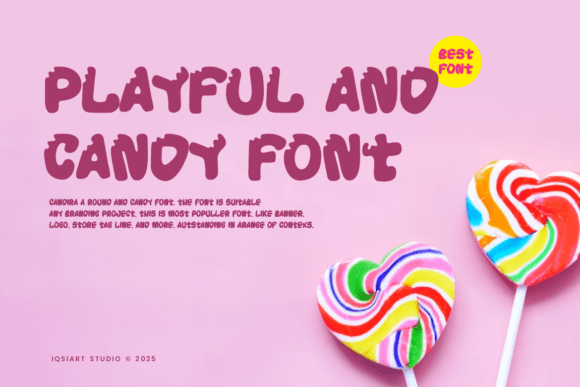
Candira Font: The Sweetest Display Font for Your Designs
Are you looking for a font that can add a touch of sugary charm to your designs? Look no further than Candira Font! This bold, bouncy, and irresistibly sweet display font is perfect for kids’ products, packaging, party invitations, playful branding, and anything that needs a dash of fun and whimsy.
What is Candira Font?
Candira Font is a unique and eye-catching display font that captures the fun of candy and childhood. Its thick, squishy letterforms and quirky style make it a standout from more traditional fonts. The font’s design is inspired by the colorful and playful world of candy, with each letterform carefully crafted to evoke the feeling of sugary treats.
Key Features of Candira Font
- Bold and Bouncy: Candira Font is a bold and bouncy font that grabs attention and adds energy to your designs.
- Sweet and Whimsical: The font’s quirky style and thick, squishy letterforms give it a sweet and whimsical feel that’s perfect for kids’ products and playful branding.
- Easy to Read: Despite its bold and playful design, Candira Font is easy to read and understand, making it perfect for use in titles, headings, and short paragraphs.
- Versatile: Candira Font can be used for a wide range of design projects, from kids’ products and packaging to party invitations and playful branding.
Uses for Candira Font
Candira Font is a versatile font that can be used for a wide range of design projects. Here are some ideas to get you started:
- Kids’ Products: Candira Font is perfect for kids’ products, such as toys, games, and children’s books.
- Packaging: The font’s bold and playful design makes it a great choice for packaging, especially for products aimed at kids.
- Party Invitations: Add a touch of fun and whimsy to your party invitations with Candira Font.
- Playful Branding: Use Candira Font to create playful and eye-catching branding for your business or product.
- Social Media Graphics: Candira Font is perfect for social media graphics, such as Facebook posts, Instagram stories, and Twitter headers.
Benefits of Using Candira Font
There are many benefits to using Candira Font in your designs. Here are a few:
- Adds Instant Joy: Candira Font adds instant joy and whimsy to your designs, making them more engaging and fun.
- Grabs Attention: The font’s bold and playful design grabs attention and draws the viewer in.
- Easy to Use: Candira Font is easy to use and pairs well with a wide range of other fonts and design elements.
- Unique and Memorable: Candira Font is a unique and memorable font that will help your designs stand out from the crowd.
Tips for Using Candira Font
Here are a few tips for using Candira Font in your designs:
- Use it for Headings: Candira Font is perfect for headings and titles, where its bold and playful design can really shine.
- Pair it with Other Fonts: Candira Font pairs well with a wide range of other fonts, so don’t be afraid to experiment and find the perfect combination for your design.
- Use it in Moderation: While Candira Font is a fun and playful font, it’s best used in moderation. Use it sparingly to add a touch of whimsy to your design, rather than overwhelming the viewer.
Candira Font is a bold, bouncy, and irresistibly sweet display font that’s perfect for adding a touch of sugary charm to your designs. Its thick, squishy letterforms and quirky style make it a standout from more traditional fonts, and its versatility makes it suitable for a wide range of design projects. Whether you’re creating kids’ products, packaging, party invitations, or playful branding, Candira Font is the perfect choice.